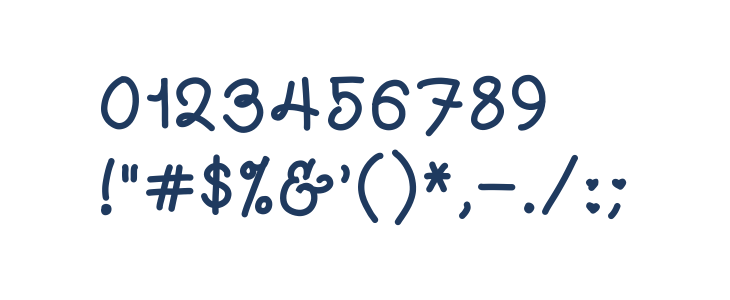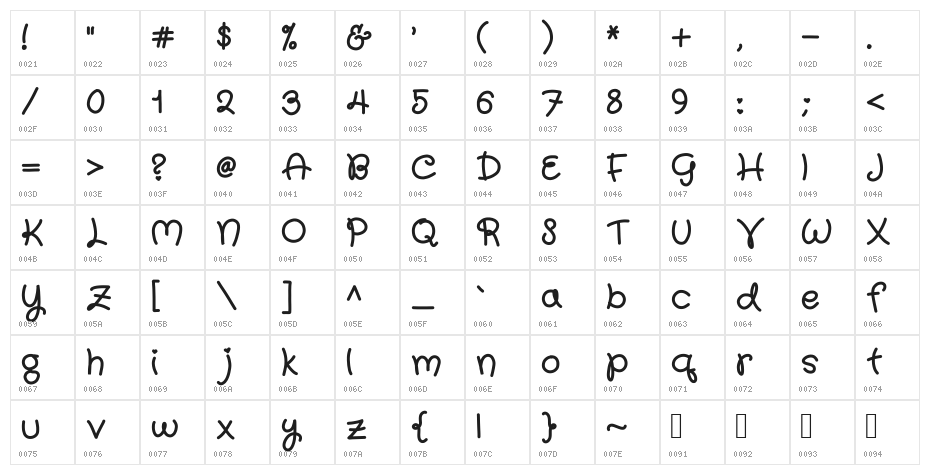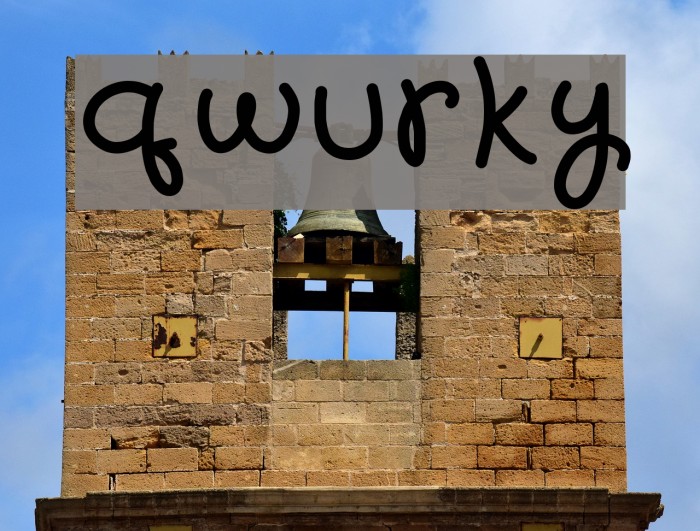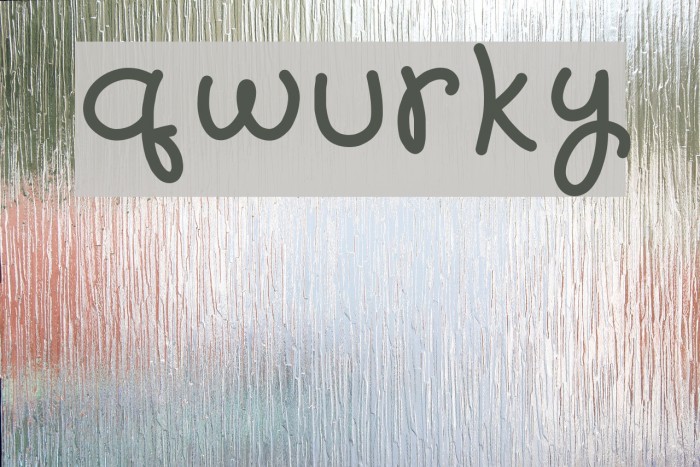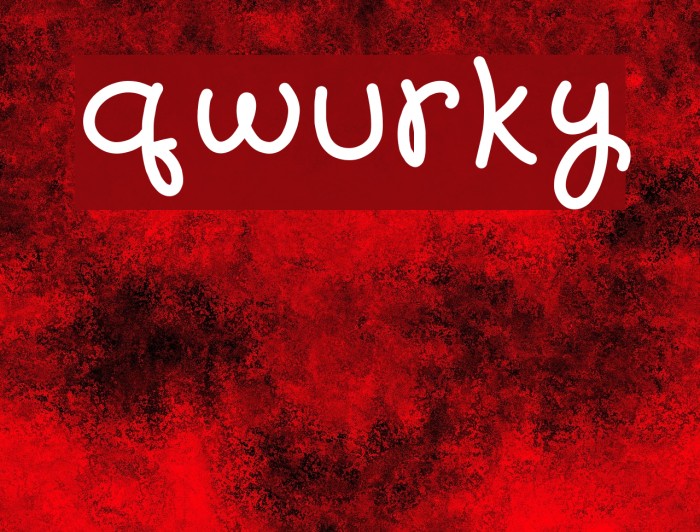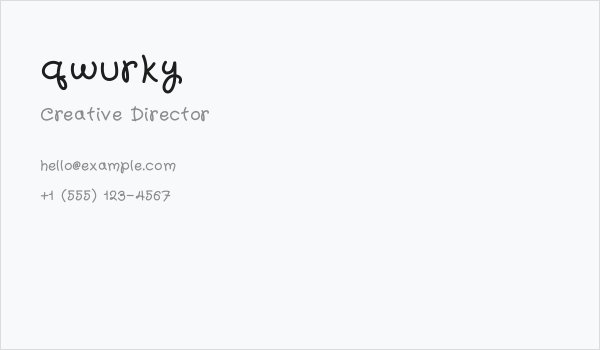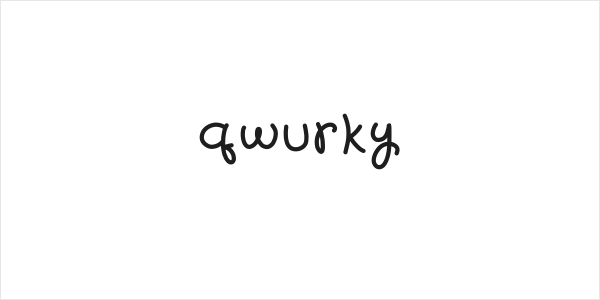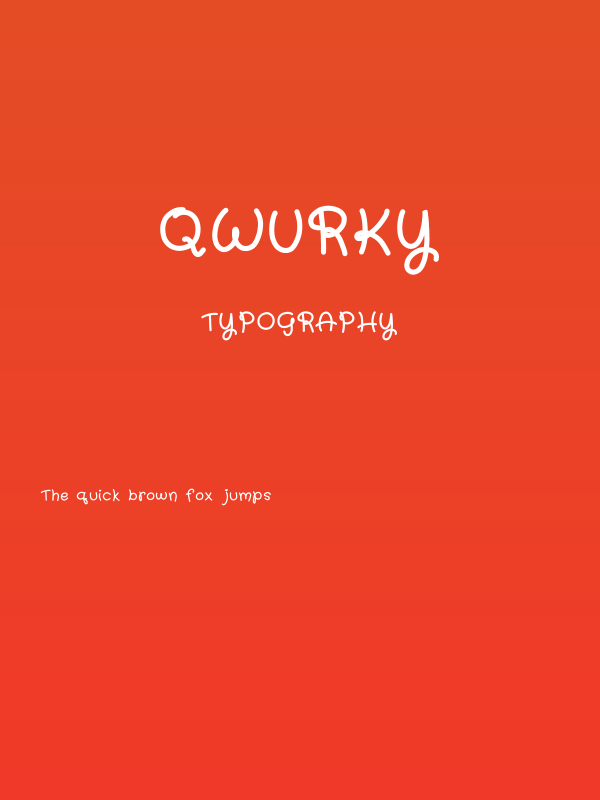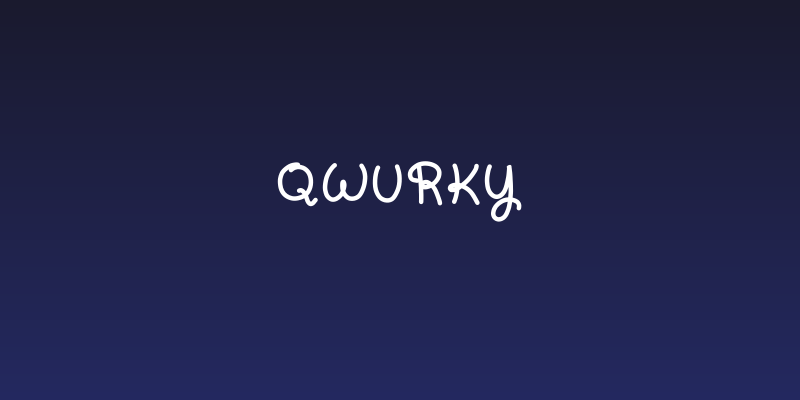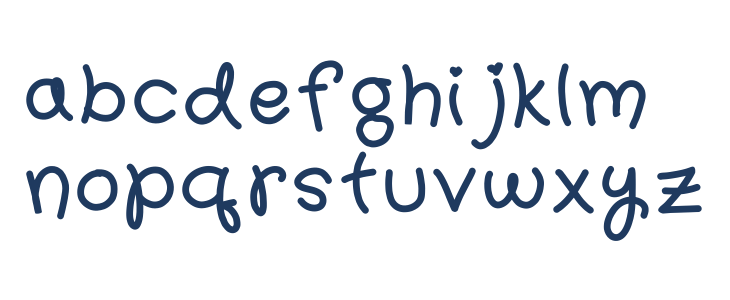
qwurky Font
qwurky Description
This playful and whimsical font features a handwritten style with a quirky twist. Each character is crafted with a unique flair, incorporating slight curls and loops that give it a lively and informal appearance. The strokes are consistent in thickness, providing a balanced and harmonious look. The font maintains a casual and friendly vibe, making it ideal for projects that require a touch of personality and charm. Its legibility is maintained despite the playful design, ensuring that it can be used effectively in various contexts.
| Proposed Projects | Ideal for children's books, greeting cards, playful branding, and creative social media graphics. |